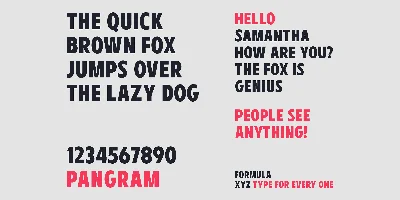
Antry Sans Font
This modern sans-serif typeface is perfect for corporate branding, tech startups, mobile app interfaces, website headers, business presentations, annual reports, digital marketing campaigns, signage systems, and contemporary logo design.
Antry Sans Font brings excitement to your design projects with its clean, geometric structure and exceptional versatility. This contemporary sans-serif font features perfectly balanced proportions and outstanding legibility that works seamlessly across digital and print platforms. The font's minimalist approach and technical precision make it ideal for brands seeking a modern, professional appearance while maintaining excellent readability at any size.
The Antry Sans Font family includes thin, light, regular, medium, bold, and black weights, along with their corresponding italic styles. This comprehensive range provides designers with complete typographic flexibility for creating sophisticated brand hierarchies and engaging visual communications.
Transform your projects with Antry Sans Font today. This versatile typeface combines contemporary aesthetics with functional design principles, making it essential for modern brand communications. Whether you're developing corporate identity systems, designing user interfaces, or creating marketing materials, this font delivers professional results with its crisp appearance and technical excellence.